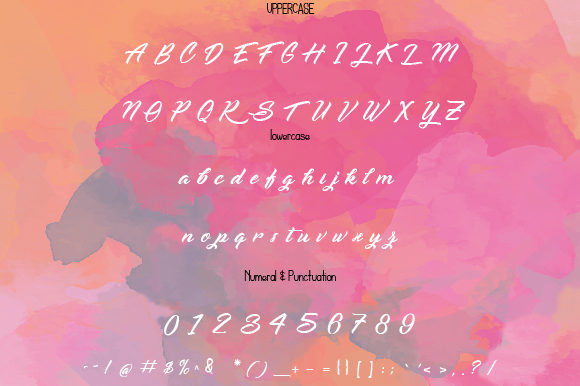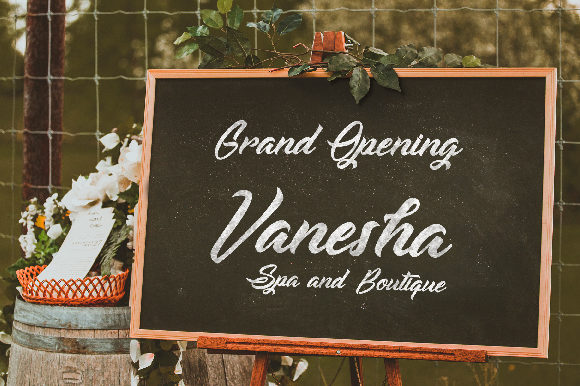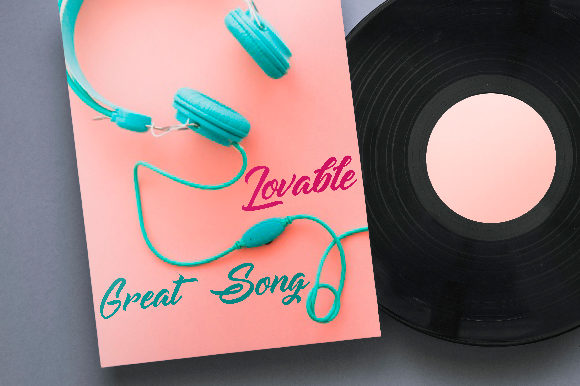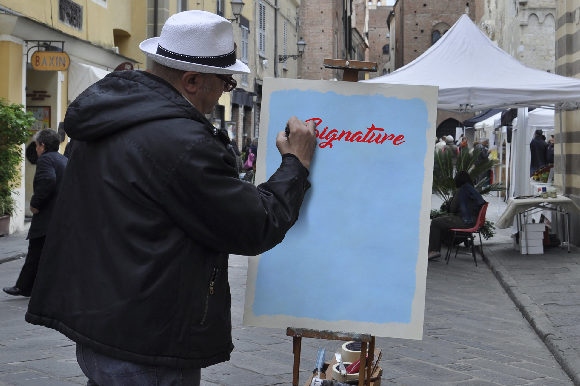
Hold on Font
About Hold on Font
The Hold On is a beautiful calligraphy font. It has a modern style with an elegant touch.
It can be used for various purposes, such as headings, signature’s, logos, wedding invitations, t-shirts, letterheads, signage’s, labels, news, posters, badges, and much more!